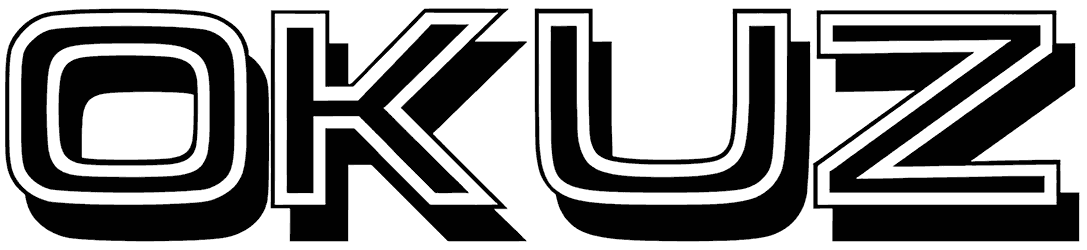
Okuz Font
In advertising and large dimensions, Okuz is a retro font designed for those who like to be first. This steel and shadow font can give a sense of power, speed, and energy to your designs, such as video game posters, car logos, and luxury brands.